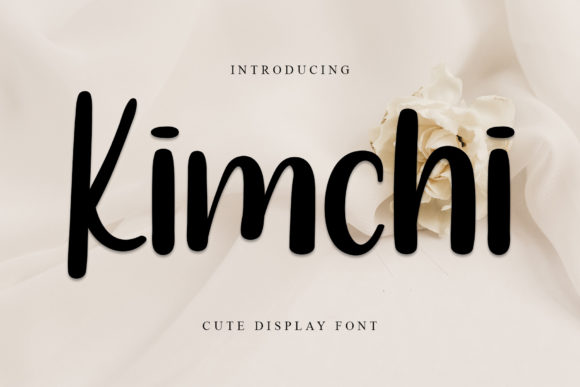
Introducing Kimchi Font: The Ultimate Tattoo Script Font for Unleashing Your Creative Vision
In the realm of font artistry, where words dance and meanings flow, Kimchi Font emerges as a dazzling display font, ready to ignite your imagination and transform your creative endeavors into masterpieces. This exceptional font, meticulously crafted by the talented giartstudios, is a symphony of style, energy, and endless possibilities.
With its captivating curves, playful strokes, and an innate sense of whimsy, Kimchi Font is the perfect choice for those seeking to express their individuality and make a lasting impression. Whether you're an artist seeking to capture the essence of a vibrant cartoon world, a game designer bringing characters to life, or a writer penning heartfelt quotes that resonate with readers, this font is your ultimate companion.
Beyond its versatility, Kimchi Font possesses an inherent charm that adds a touch of delight to every project it graces. Its playful nature lends itself effortlessly to brand names, book covers, and posters, injecting a sense of fun and excitement into any design. For those seeking a font that sparks joy and captivates audiences, Kimchi Font stands as the perfect solution.
As you embark on your creative journey with Kimchi Font, you'll discover a world of endless possibilities. Its adaptability shines through whether you're designing children's games, crafting eye-catching titles, or creating unique logos that leave an indelible mark. With each stroke of this font, you'll weave tales of adventure, ignite imaginations, and leave your audience spellbound.